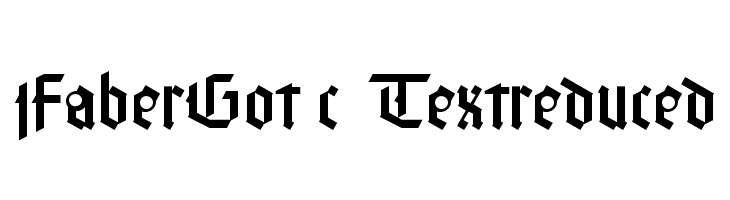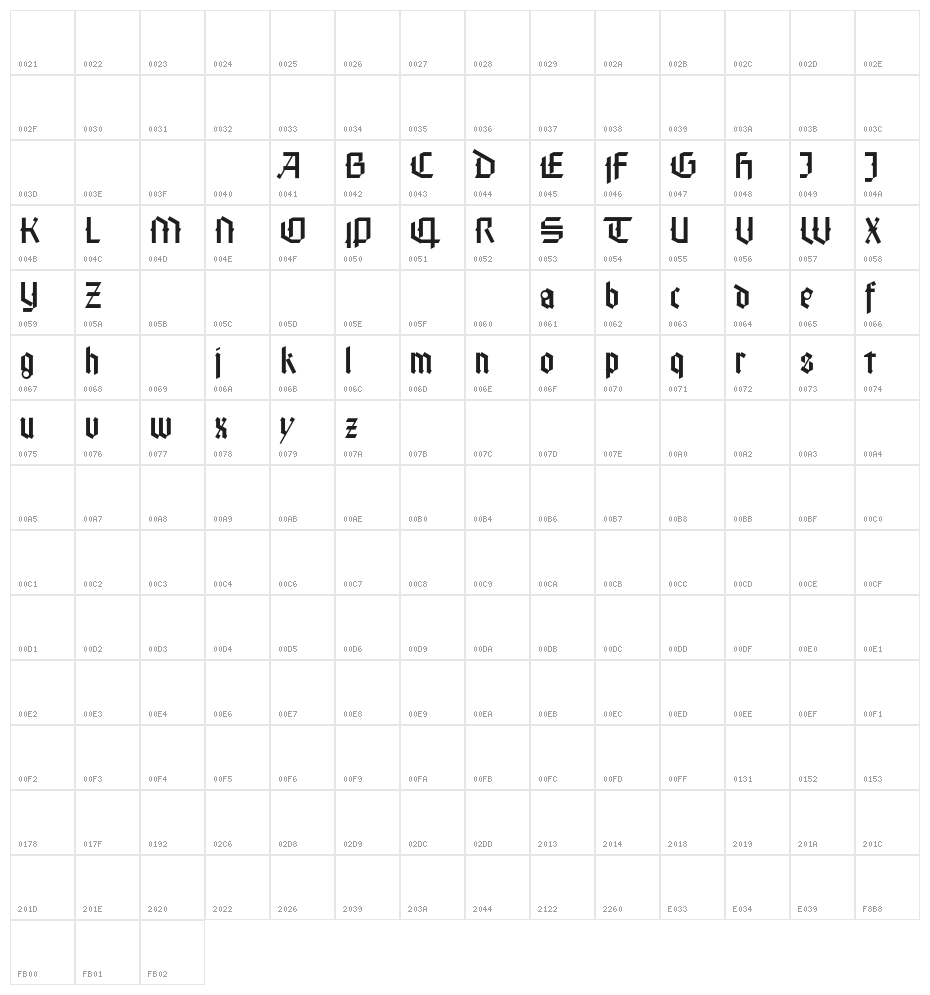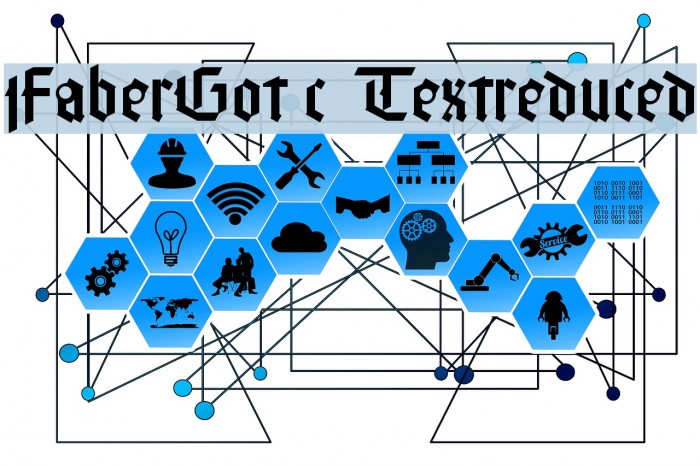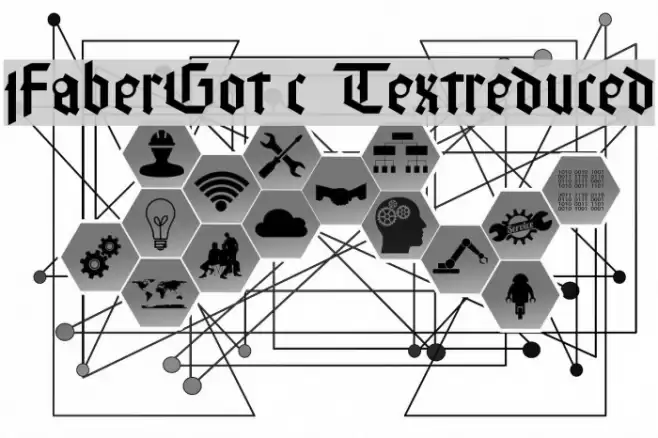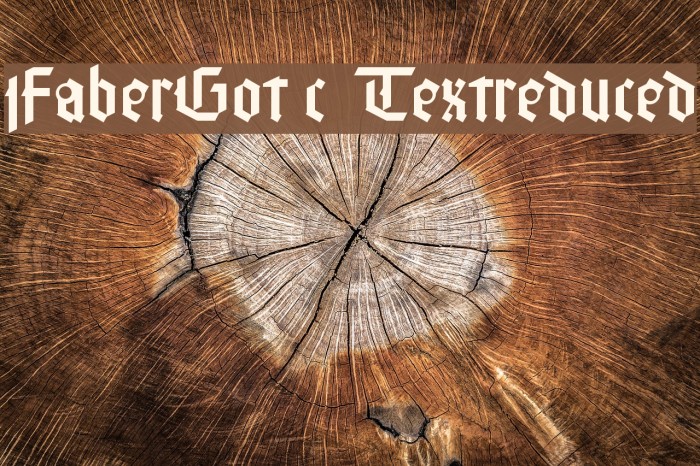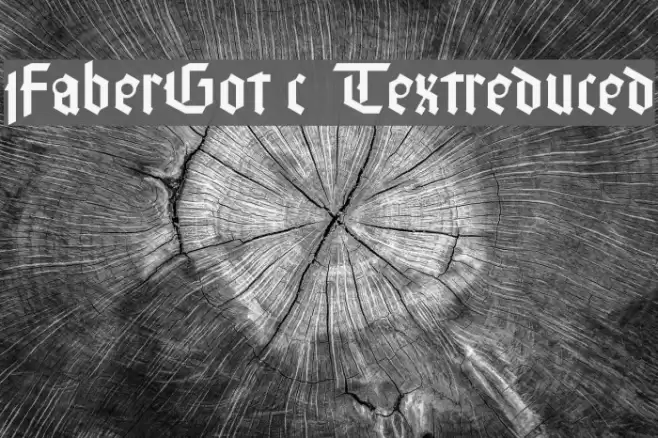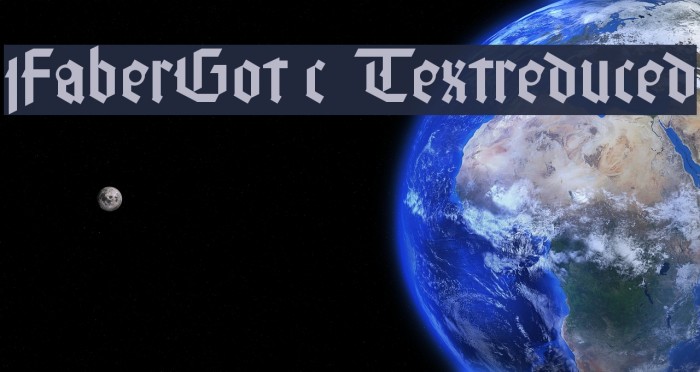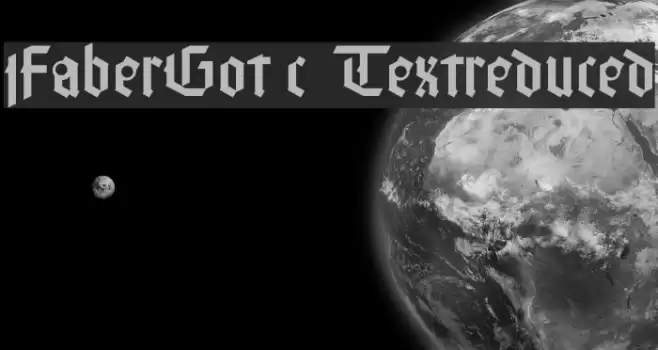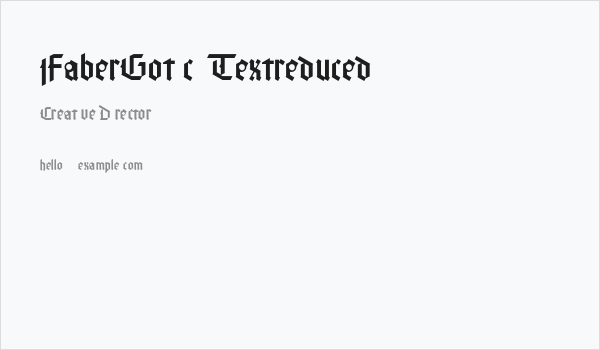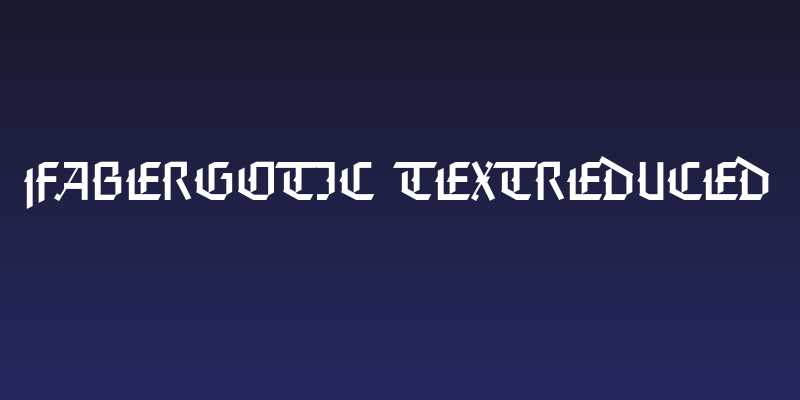
FaberGotic-Textreduced Font
| おすすめプロジェクト | Ideal for historical-themed designs, book covers, posters, and branding that requires a traditional or authoritative look. |